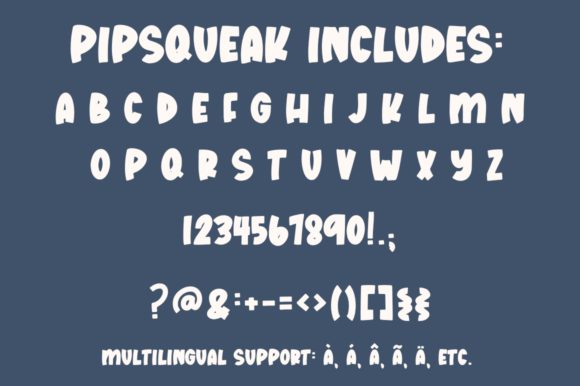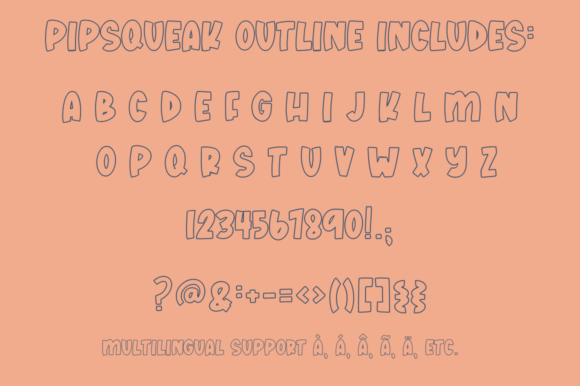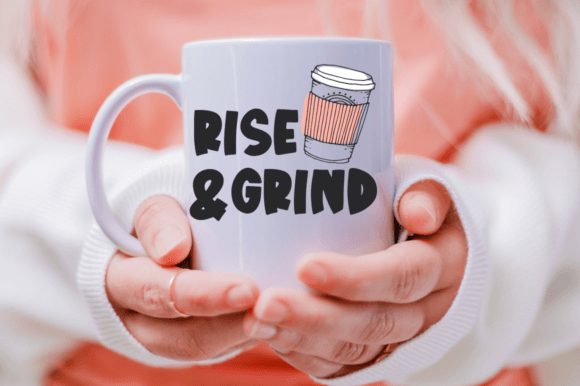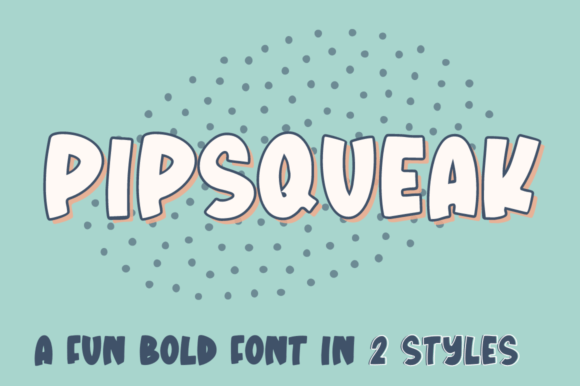
Introduction to Pipsqueak Font
Pipsqueak is a fun and bold handwritten display font.
Why Choose Pipsqueak Font?
Pipsqueak Font offers exceptional quality and versatility, making it a valuable addition to your design toolkit. Whether you’re creating for personal projects or commercial use, Pipsqueak Font delivers professional results.